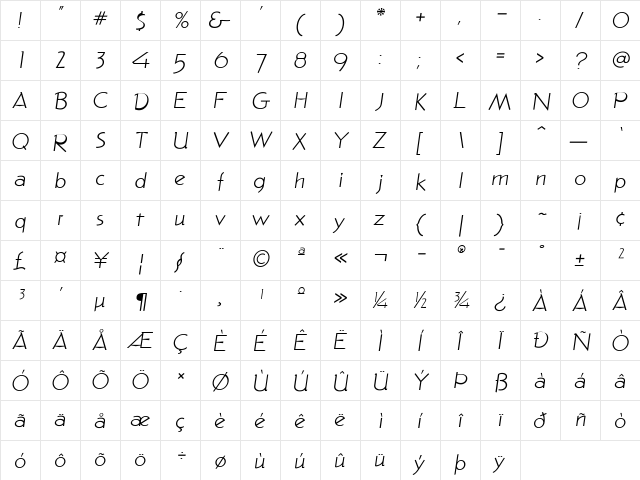
Pacific Regular
Design Context for Pacific Typeface
Pacific takes a measured approach to typography — its balanced proportions and neutral character make it a reliable workhorse for both digital and print work.